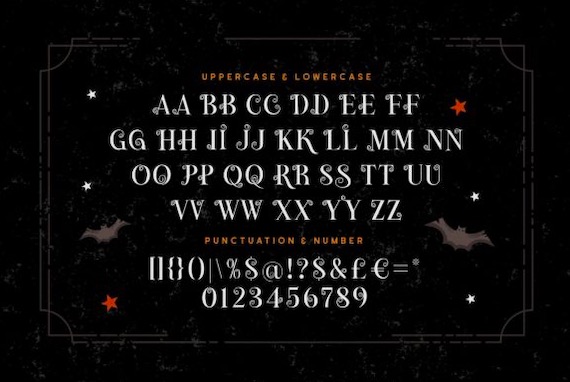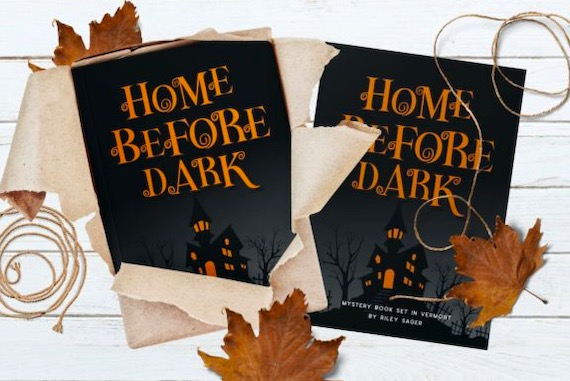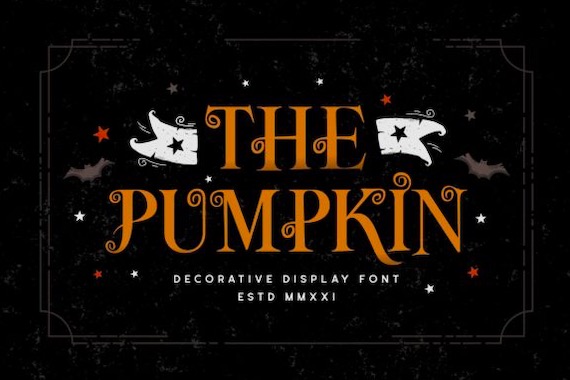
Pumpkin Font is a groovy and dark-looking display typeface. It was created and shared by Runsell Graphic along with great suitable for every type of project. This display font will be a design idea for every designer.
Pumpkin Display Font